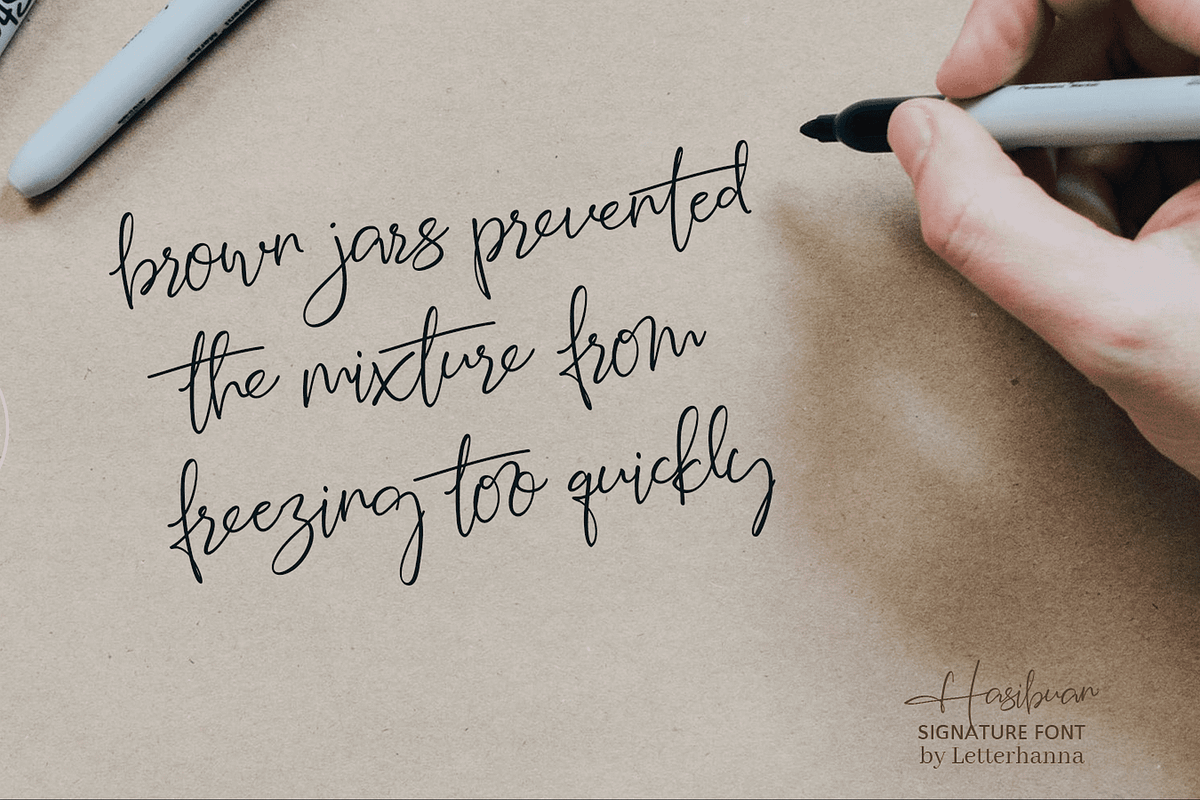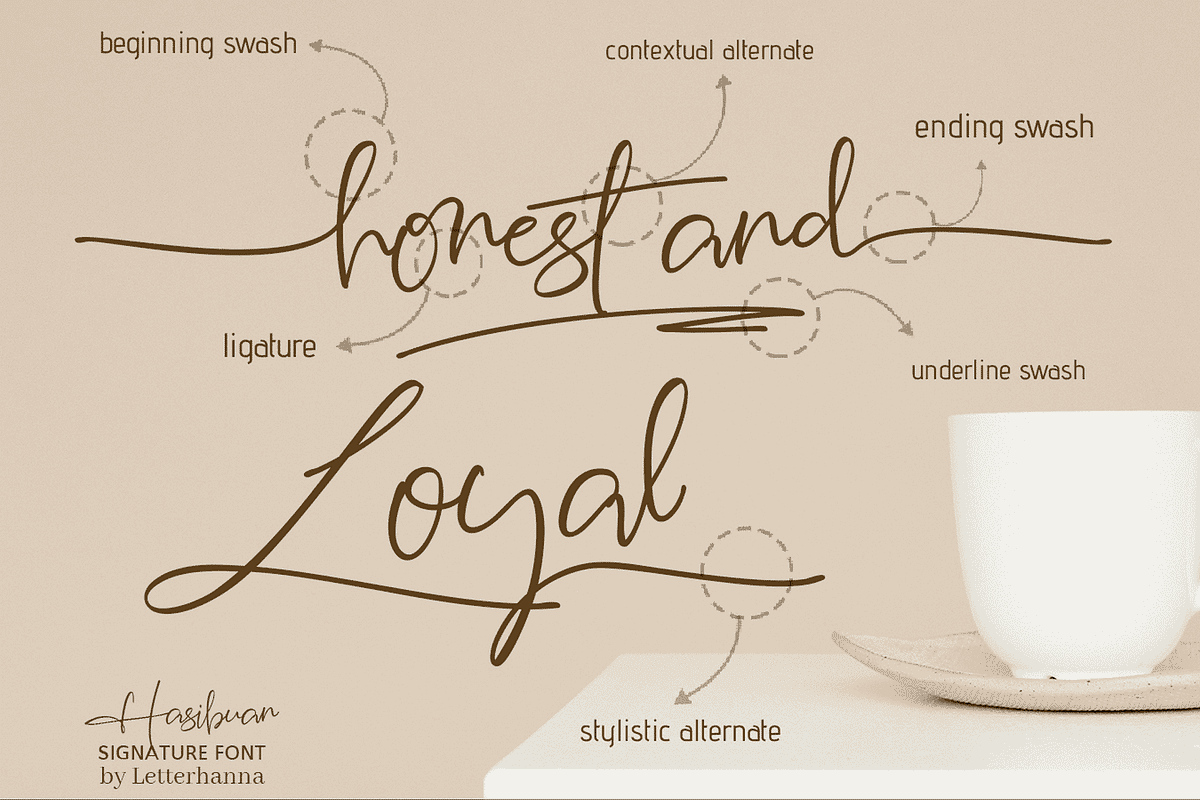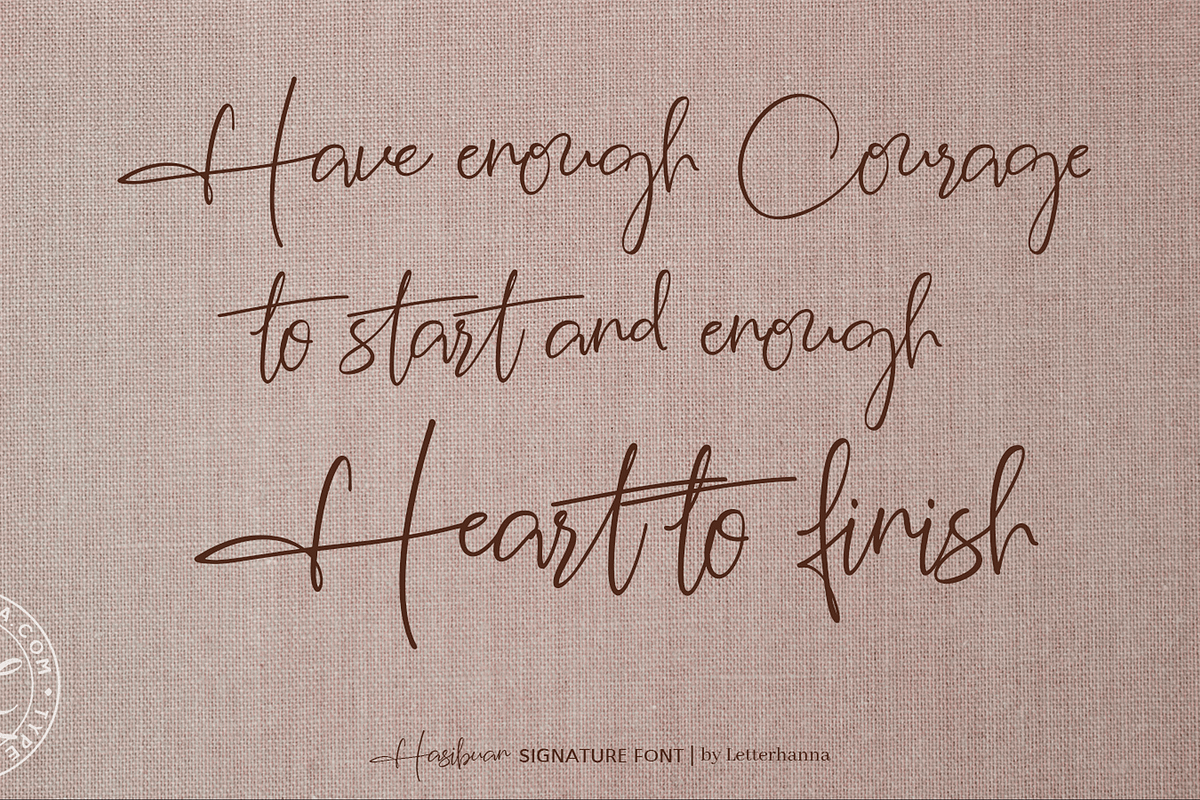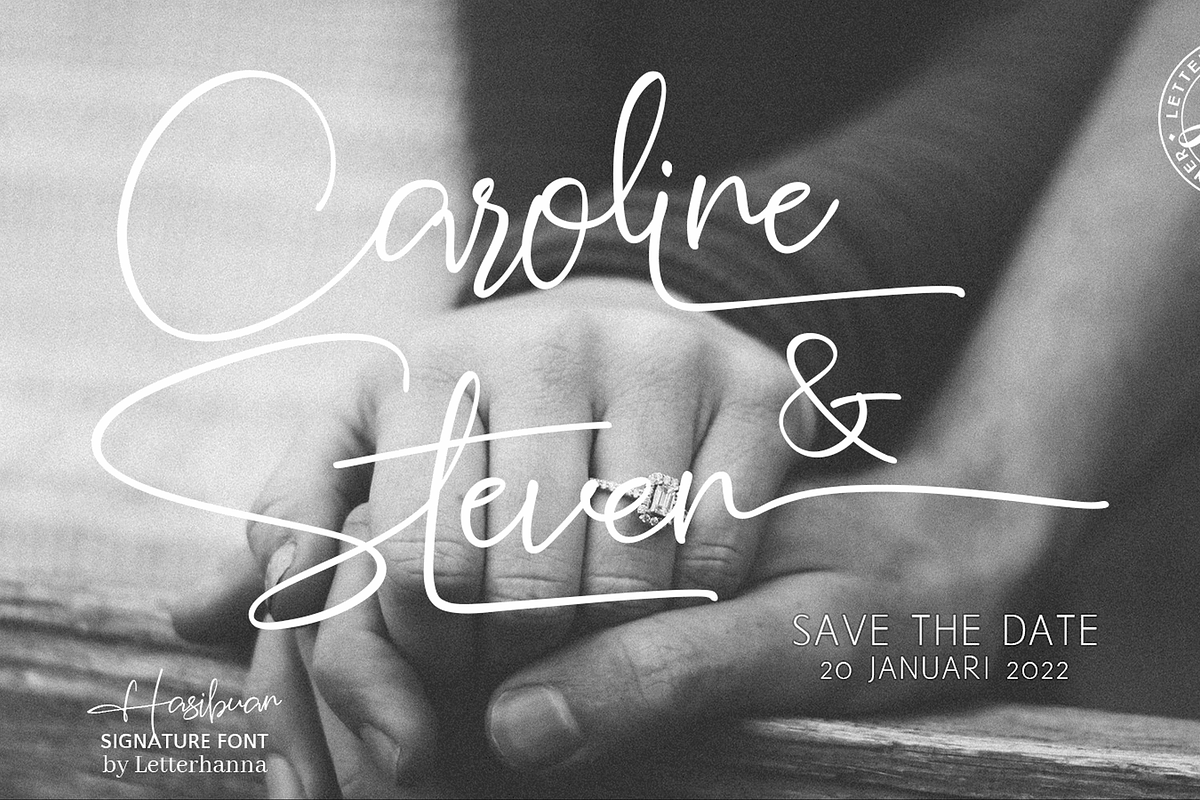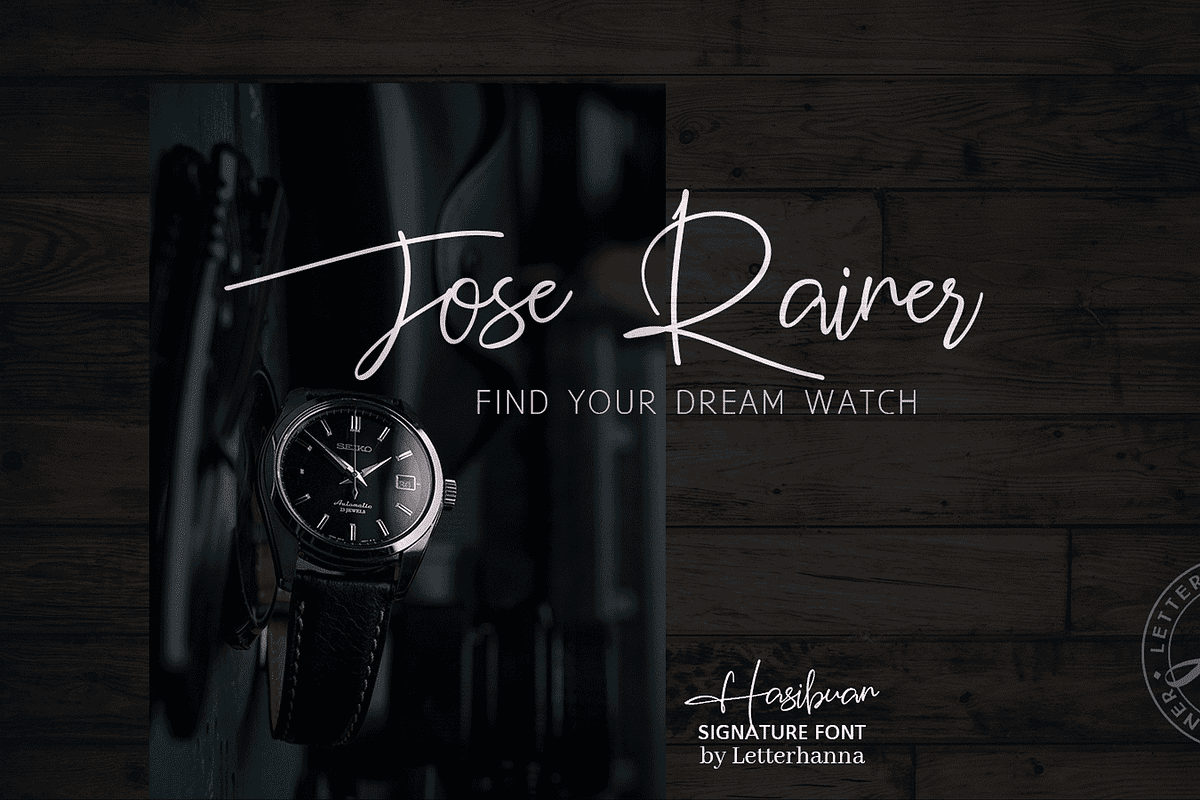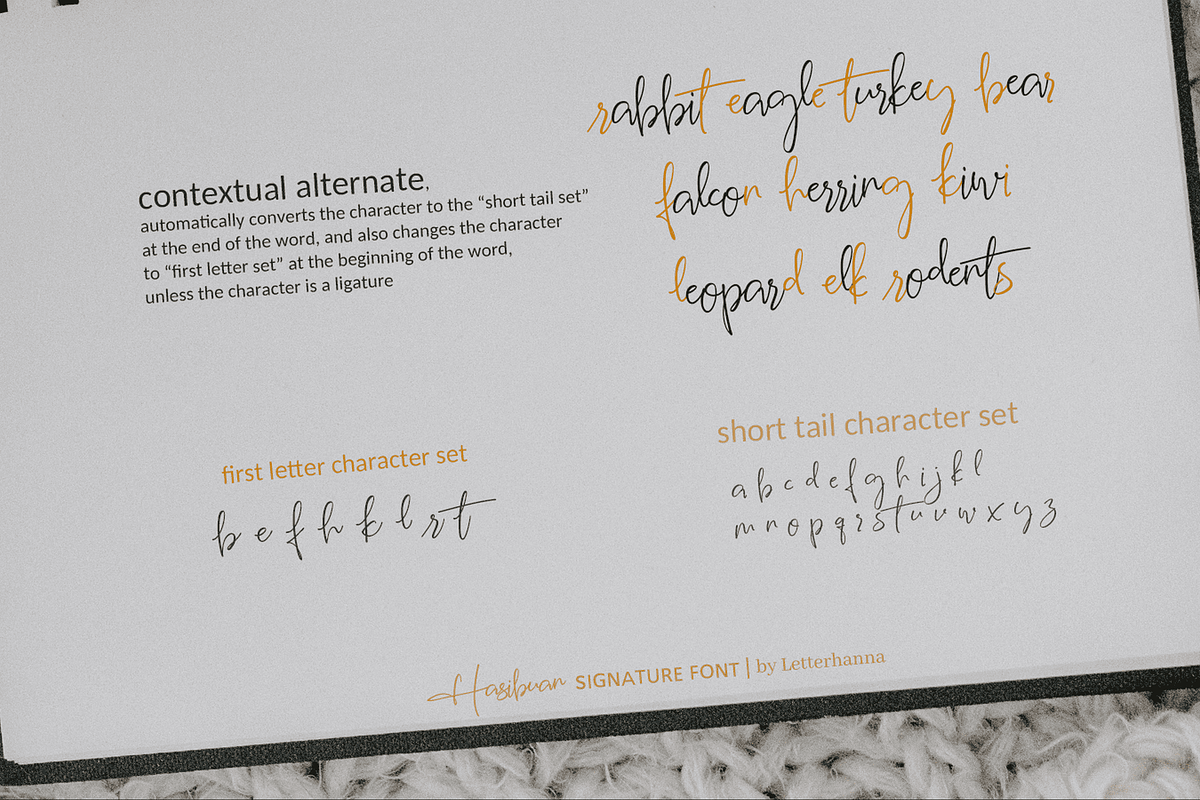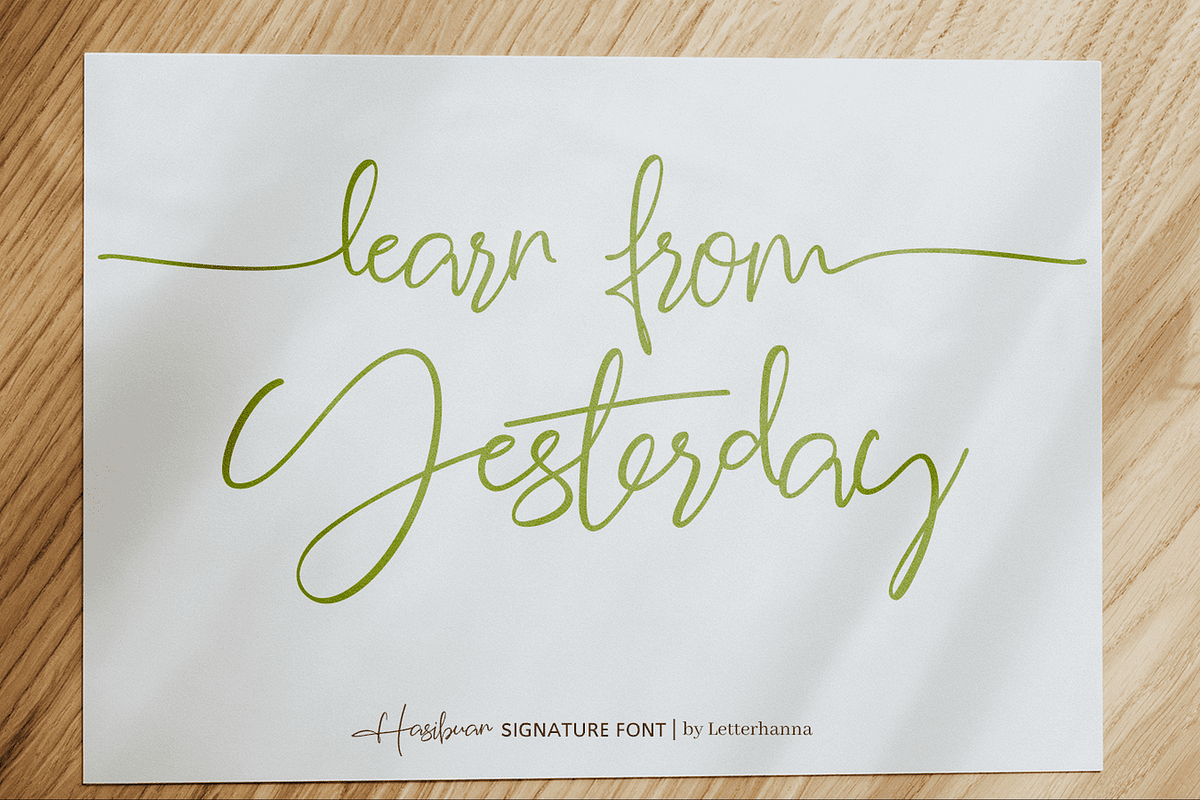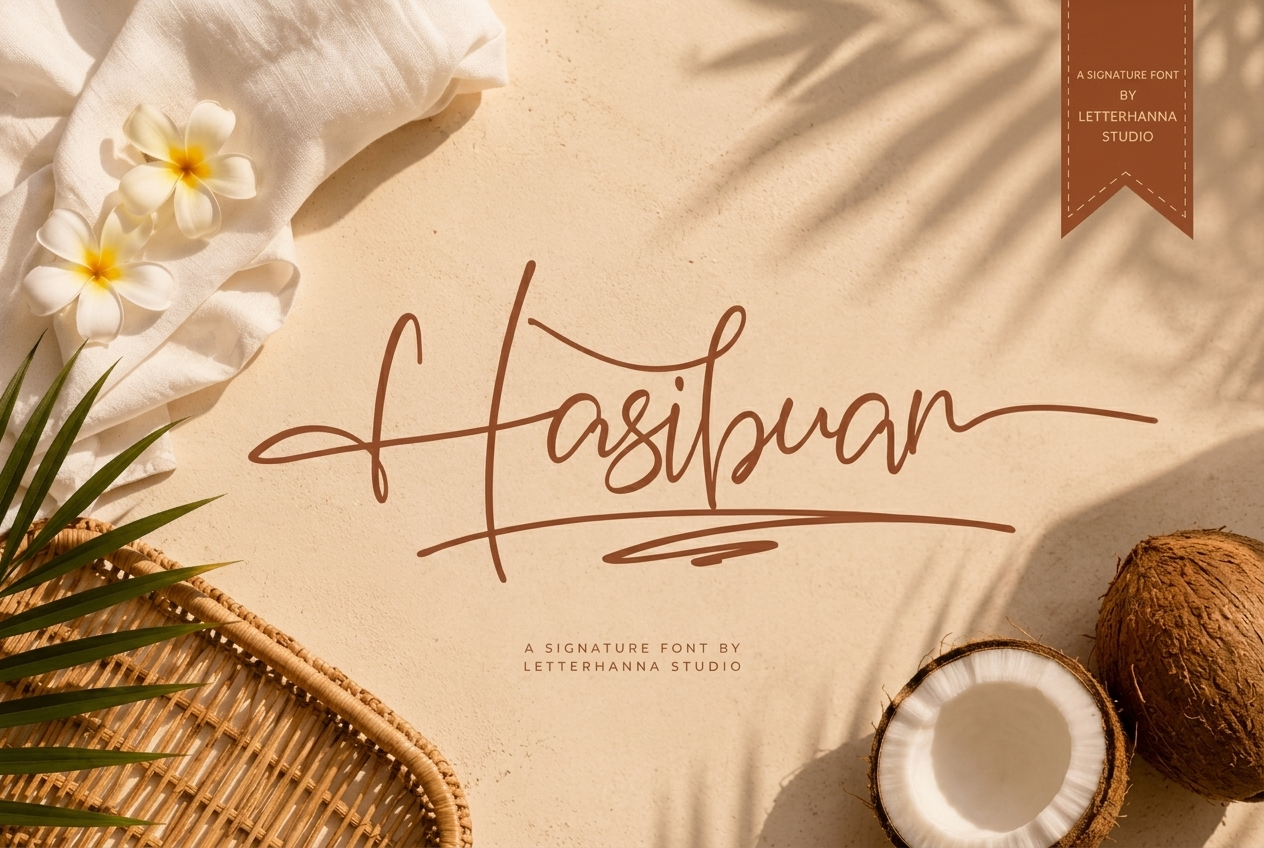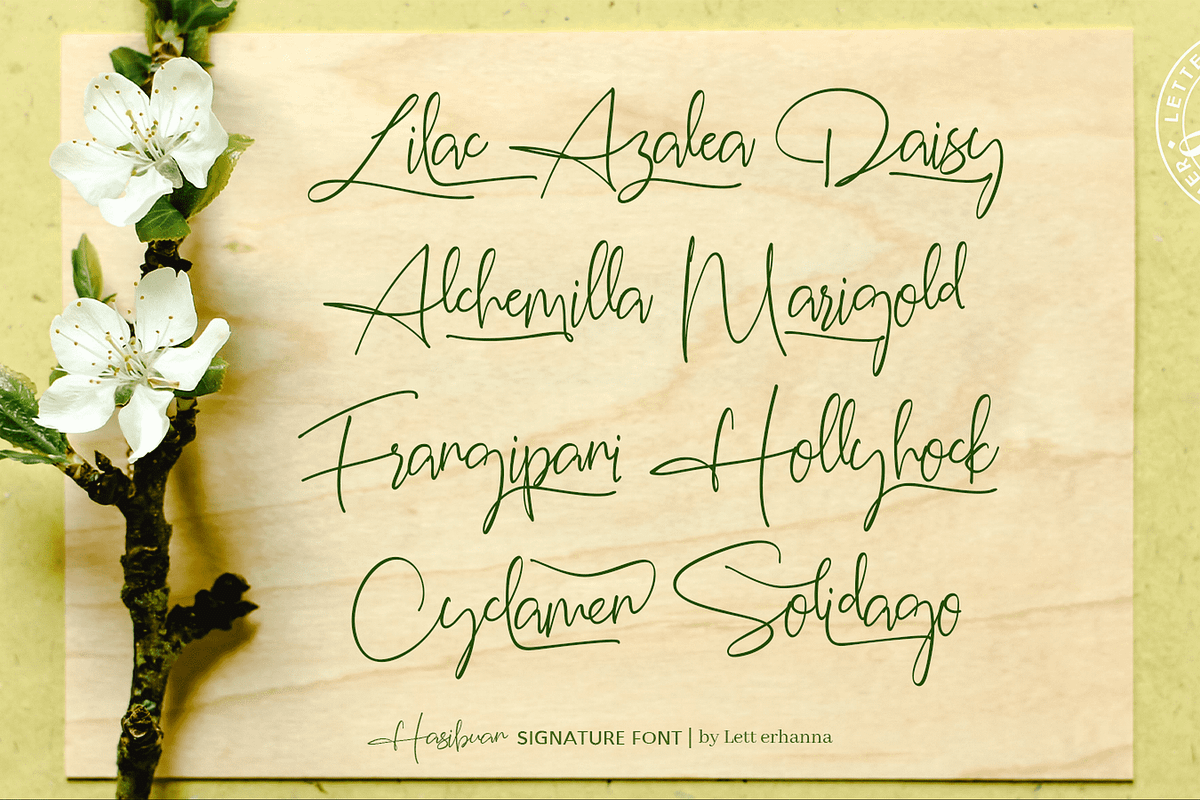
Hasibuan Font
Hasibuan is a font with Signature style, but with the vibe of real hand lettering, with a lot of swashes, ligatures and stylistic alternate, Hasibuan Font is perfect for many different project such as logos & branding, invitation, wedding designs, social media posts, advertisements, product packaging, product designs, label, photography, watermark, special events or anything.
Hasibuan Signature Script Font contains a full set of lower & uppercase letters, a large range of punctuation, numerals, and multilingual support.
Hasibuan Signature Script Font was created to look as close to a natural handwritten script as possible by including over 50 natural-looking opentype ligatures, and a full set of lowercase alternates. There are also 24 underline swooshes included.
Hasibuan Signature Script Font also comes with more OpenType features like Stylistic Alternates, Initial Forms, Terminal Forms, beginning-of-word swashes and end-of-word swashes.
Beginning and ending swashes
Underline swashes
Stylistic alternate.
Letterhanna Studio